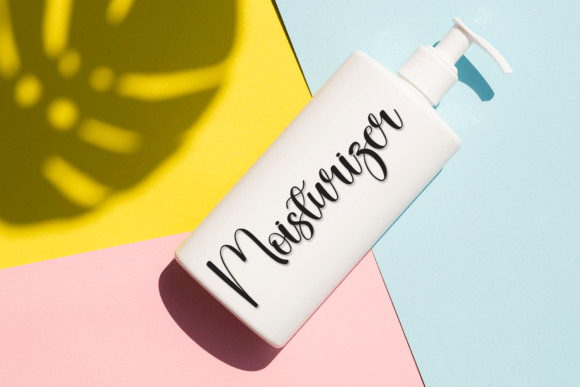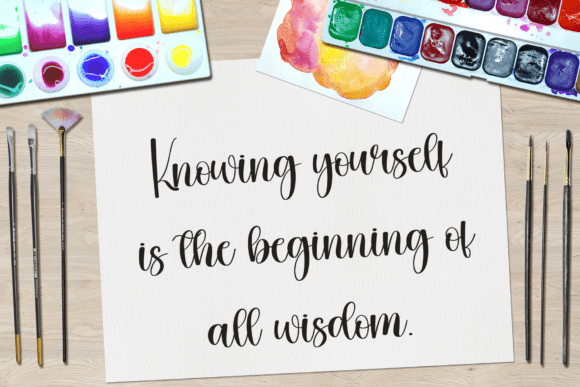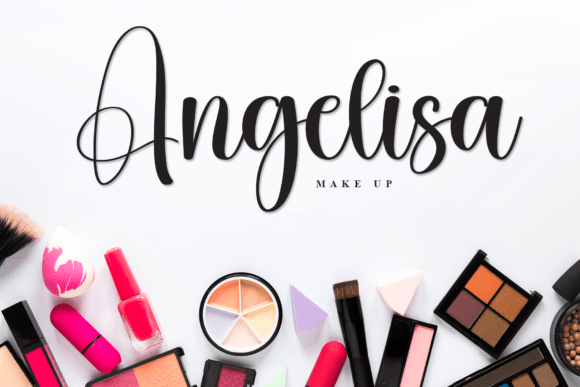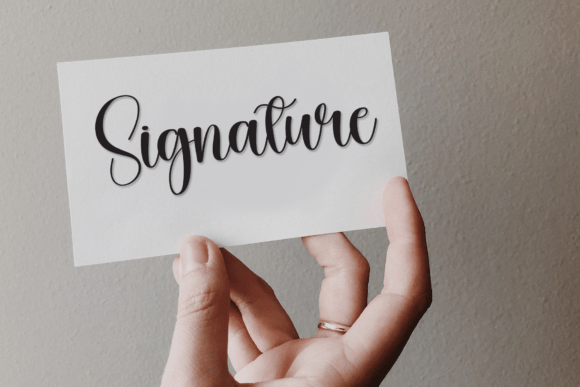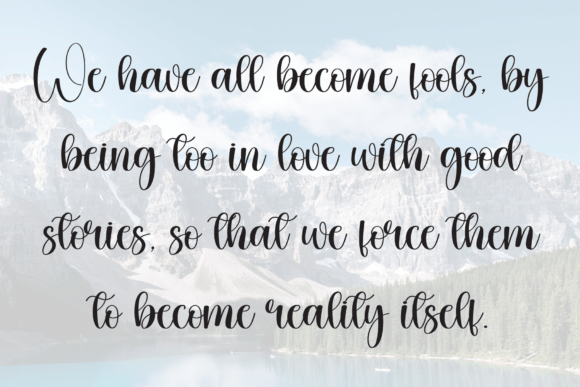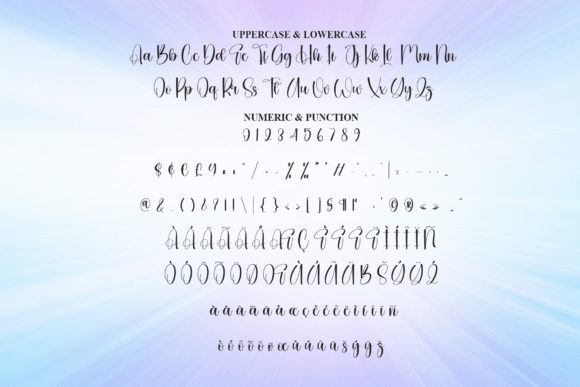
Brighten Font: Elevate Your Designs with a Touch of Luminous Charm
In the world of typography, a new star has emerged to brighten up the creative landscape. Introducing Brighten, a stunning handwritten script font that embodies warmth, sophistication, and a dash of elegance. This beautiful typeface is designed to bring a sense of joy and curated beauty to your projects, making every word shine with a personal and professional touch.
The Art of Fluid Typography
Brighten Font is characterized by its fluid, rhythmic strokes that dance across the page with effortless ease. The elegant, dancing ligatures that connect each letter are reminiscent of the natural flow of a master calligrapher’s hand. This organic, hand-crafted feel gives Brighten a unique personality that sets it apart from more rigid, traditional typefaces.
Perfect for Premium Branding and Editorial Layouts
Brighten Font is the perfect choice for designers and crafters looking to create premium branding, aesthetic editorial layouts, signature logos, and celebratory stationery. Its sophisticated and elegant feel makes it ideal for high-end clients and projects that require a touch of luxury. Whether you’re designing a brand identity, creating a editorial spread, or crafting a bespoke invitation, Brighten Font is sure to impress.
One of the standout features of Brighten Font is its versatility. It can be used in a variety of design contexts, from vibrant, light-filled backgrounds to minimalist packaging. When paired with a bold, colorful background, Brighten Font shines with an added radiance, while on a more subdued palette, it provides a beautiful, elegant contrast. This adaptability makes Brighten Font a valuable addition to any designer’s toolkit.
Bringing a Personal Touch to Your Designs
In an era of digital communication, it’s easy for messages to feel impersonal and generic. Brighten Font helps you cut through the noise by infusing your designs with a personal touch. Its hand-crafted feel and elegant strokes evoke a sense of human connection, making your message feel more relatable and engaging. Whether you’re designing for a client or working on a personal project, Brighten Font helps you create a lasting impression.
Key Features of Brighten Font
- Fluid, rhythmic strokes for a natural, hand-crafted feel
- Elegant, dancing ligatures for added sophistication
- Perfect for premium branding, editorial layouts, signature logos, and celebratory stationery
- Versatile and adaptable for use on various backgrounds and design contexts
- Designed to bring a sense of joy and curated beauty to your designs
Get Ready to Brighten Up Your Designs
In conclusion, Brighten Font is a game-changing typeface that is sure to revolutionize the way you approach typography in your designs. Its fluid, rhythmic strokes, elegant ligatures, and versatile nature make it the perfect choice for designers and crafters looking to create premium branding, editorial layouts, and celebratory stationery. With Brighten Font, you can bring a sense of joy and curated beauty to your designs, making every word shine with a personal and professional touch.